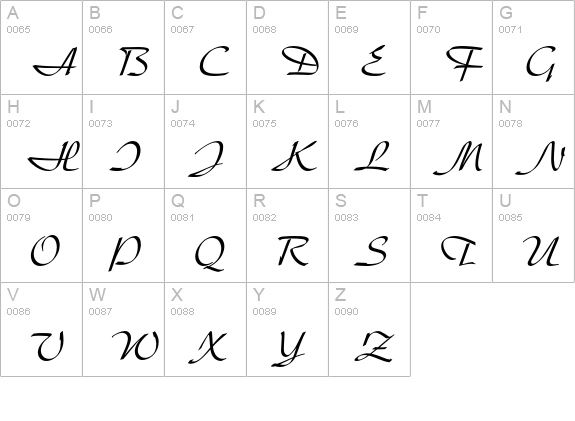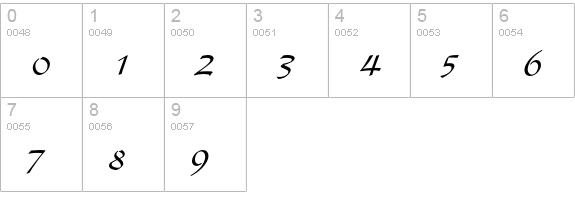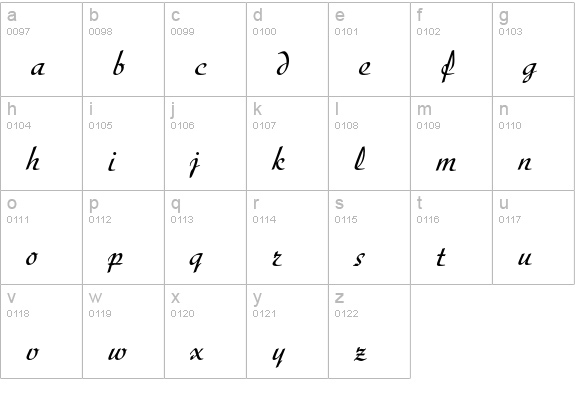
Diskus Font Details
Diskus font is a modern and sleek typeface that exudes elegance and sophistication. Its clean lines and rounded edges give it a contemporary look that is perfect for a wide range of design projects. Whether you're creating a logo, branding materials, or editorial layouts, Diskus font will add a touch of sophistication to your work. The best part about Diskus font is that it is completely free to download. You can easily access this stylish typeface at FontsMarket.com, where you can find a variety of other high-quality fonts to elevate your design projects. With Diskus font, you can bring a touch of modern elegance to your designs without breaking the bank. Download it today and see the difference it can make in your creative projects.